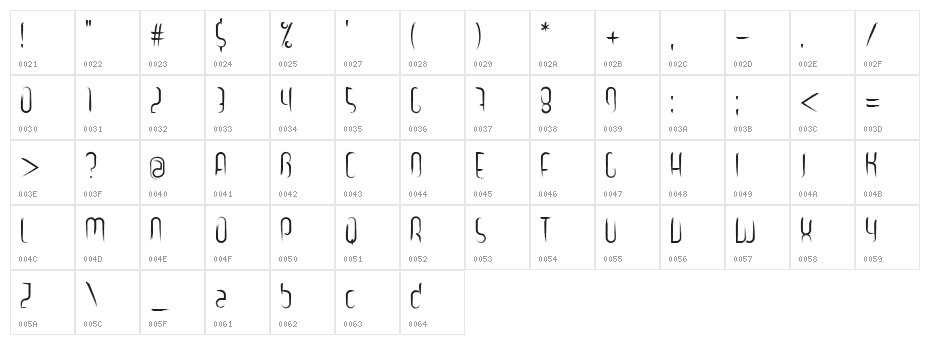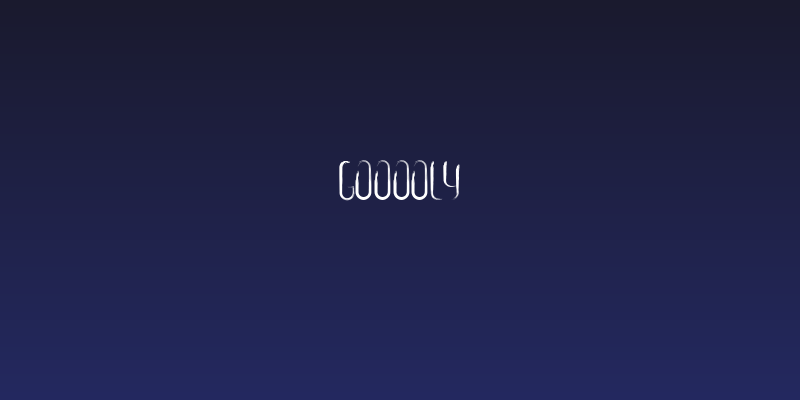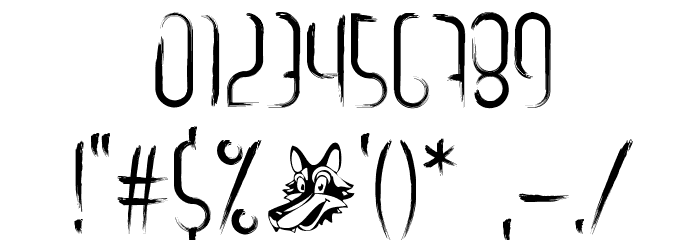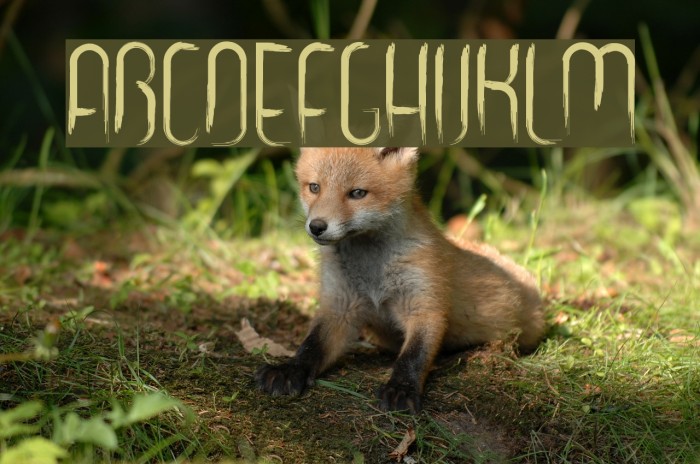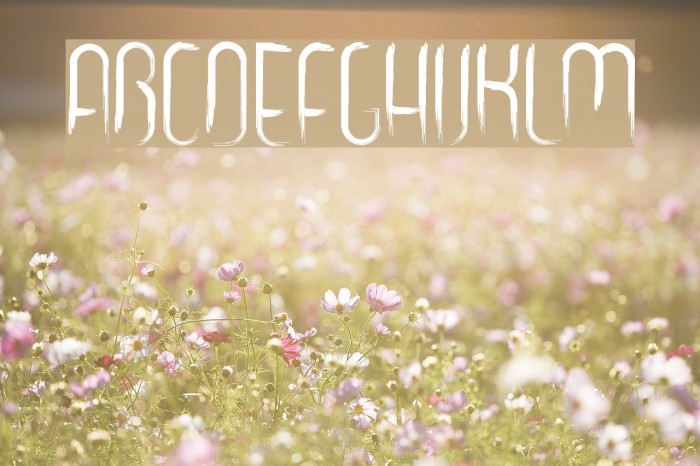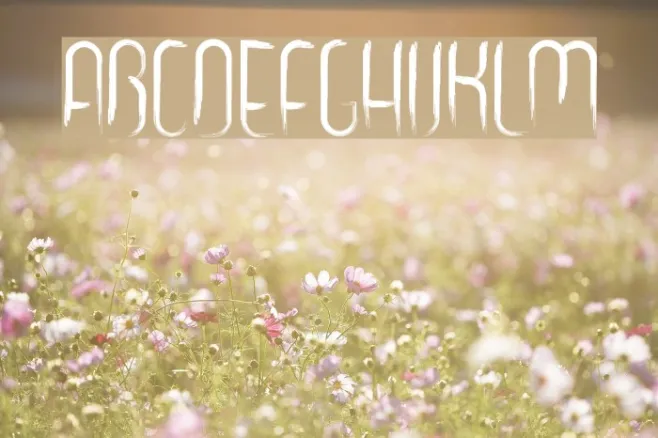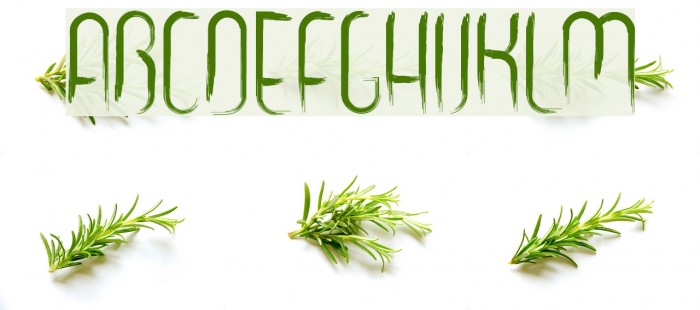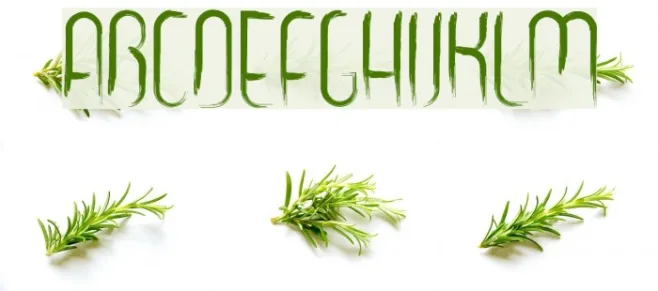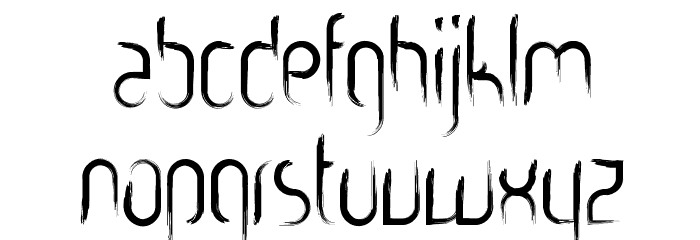
gooooly Font
gooooly Description
This font features a unique and artistic style, characterized by its brush-like strokes that give it a dynamic and edgy appearance. The uppercase and lowercase letters maintain a consistent height, creating a uniform look. The numbers and special characters follow the same design principles, ensuring a cohesive visual experience. The strokes vary in thickness, adding a sense of movement and energy to the text. This font is ideal for projects that require a bold and creative touch, such as posters, album covers, or branding materials. Its distinctive style makes it stand out, capturing attention with its artistic flair.
| Overall Style | Artistic, Edgy |
| Proposed Projects | Posters, album covers, branding materials, creative advertisements. |